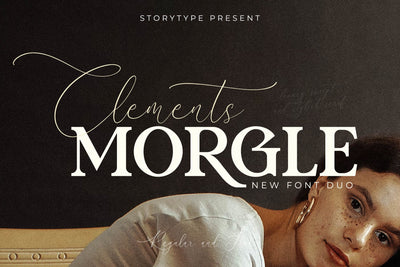
Clements Morgle Font Duo
Proudly present Clements Morgle Font Duo , created by Storytype,
A serif and script typeface that has own unique style & modern look.